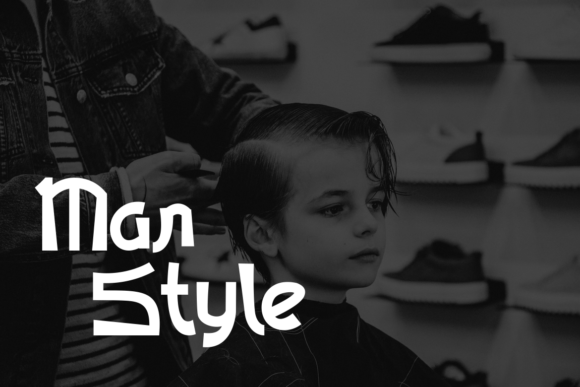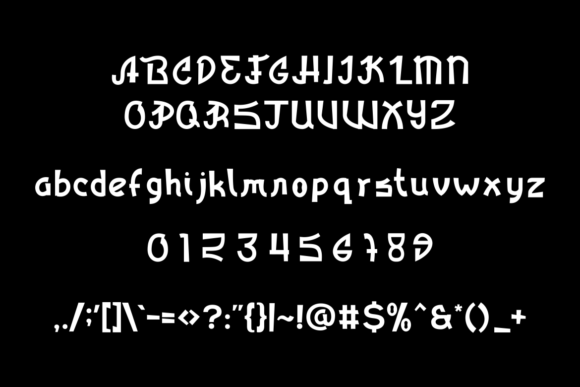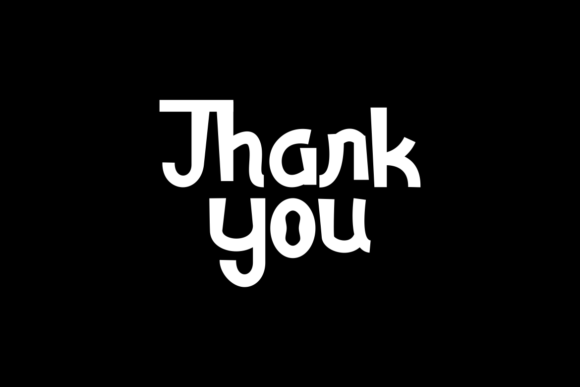
Introducing Afokem Font: Elevate Your Designs with Elegance and Style
Are you tired of using the same old fonts in your designs? Look no further! Afokem Font is here to revolutionize your creative projects with its stunning display font that exudes style and elegance. This gorgeous font is perfect for designers and crafters who want to add a touch of sophistication to their work. In this article, we’ll dive into the world of Afokem Font and explore its features, benefits, and uses.
What is Afokem Font?
Afokem Font is a beautifully crafted display font that boasts a unique and stylish design. Its elegant style makes it perfect for a wide range of creative projects, from branding and advertising to packaging and digital media. With Afokem Font, you can add a touch of luxury and sophistication to your designs, setting them apart from the rest.
Key Features of Afokem Font
- Stylish and Elegant Design: Afokem Font features a stunning design that is both stylish and elegant, making it perfect for high-end designs.
- Versatile: This font is versatile and can be used in a variety of creative projects, from print to digital media.
- Easy to Read: Despite its elegant design, Afokem Font is easy to read, making it perfect for body text and headlines.
- High-Quality: Afokem Font is a high-quality font that is designed to deliver exceptional results in your designs.
Benefits of Using Afokem Font
So, why should you choose Afokem Font for your designs? Here are just a few benefits of using this amazing font:
- Stand Out from the Crowd: With Afokem Font, you can create designs that stand out from the crowd and grab attention.
- Professional Look: This font gives your designs a professional look that is perfect for businesses and brands.
- Easily Customizable: Afokem Font is easily customizable, allowing you to adjust the font size, color, and style to suit your design needs.
- Time-Saving: With Afokem Font, you can save time and effort in creating stunning designs that impress.
How to Use Afokem Font in Your Designs
Using Afokem Font in your designs is easy! Here are a few tips to get you started:
- Pair it with Other Fonts: Pair Afokem Font with other fonts to create a unique and stylish design.
- Experiment with Colors: Experiment with different colors to find the perfect combination that works for your design.
- Adjust Font Size: Adjust the font size to create visual hierarchy and emphasis in your design.
- Use it in Digital Media: Use Afokem Font in digital media, such as social media graphics, website headers, and email newsletters.
Who Can Benefit from Afokem Font?
Afokem Font is perfect for a wide range of designers and crafters, including:
- Graphic Designers: Graphic designers can use Afokem Font to create stunning designs for clients.
- Digital Artists: Digital artists can use Afokem Font to add a touch of elegance to their artwork.
- Crafters: Crafters can use Afokem Font to create beautiful crafts, such as handmade cards and gift tags.
- Small Business Owners: Small business owners can use Afokem Font to create professional-looking marketing materials.